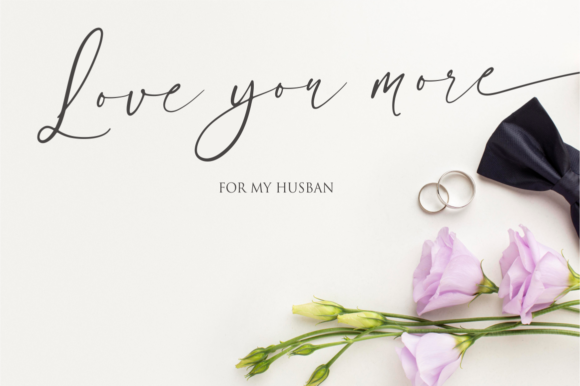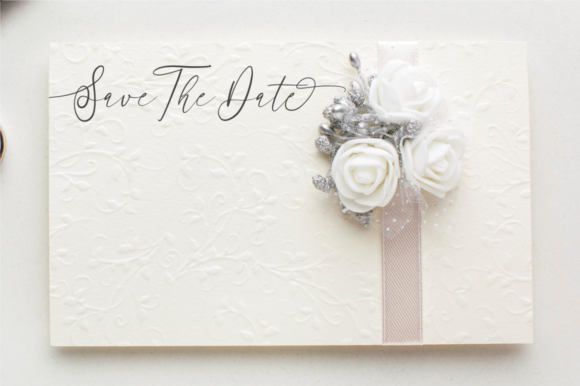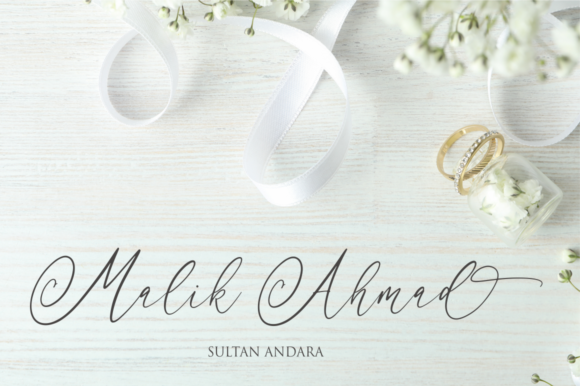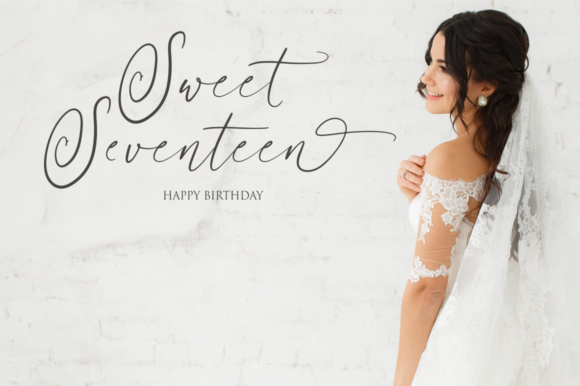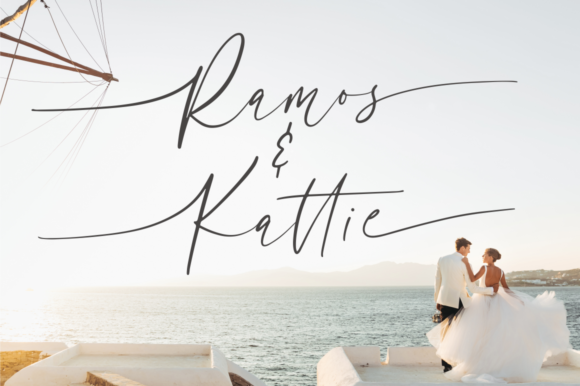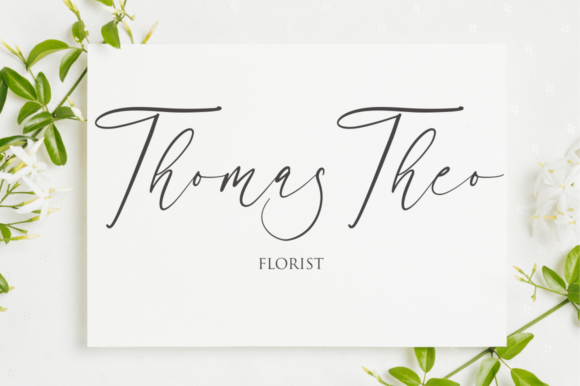
Get Married Font: Elevate Your Designs with Elegance and Sophistication
Are you a designer or crafter looking for a font that exudes elegance and sophistication? Look no further than the Get Married font, a stunning free-flowing script font that is perfect for a wide range of design projects. In this article, we’ll take a closer look at the features and benefits of Get Married font, and explore how it can elevate your designs to the next level.
What is Get Married Font?
Get Married font is a beautiful, hand-crafted script font that is designed to add a touch of elegance and sophistication to any design project. With its flowing lines and balanced character, this font is perfect for creating stunning packaging products, invitation cards, flyers, mockups, event posters, and more.
Key Features of Get Married Font
- Free-flowing script font: Get Married font features a beautiful, flowing script style that is perfect for creating elegant and sophisticated designs.
- High-quality vibes: Get Married font is designed to provide high-quality vibes, making it perfect for designs that require a touch of elegance and sophistication.
- Balanced character: The font features a beautiful and balanced character that fits well with a large design pool.
What Can I Use Get Married Font For?
Get Married font is a versatile font that can be used for a wide range of design projects, including:
- Packaging products: Add a touch of elegance and sophistication to your packaging products with Get Married font.
- Invitation cards: Create stunning invitation cards for weddings, parties, and other special events.
- Flyers: Design eye-catching flyers for events, promotions, and more.
- Mockups: Use Get Married font to create stunning mockups for your designs.
- Event posters: Create beautiful event posters for concerts, festivals, and other events.
Why Choose Get Married Font?
There are many reasons why you should choose Get Married font for your design projects. Here are just a few:
- Elegance and sophistication: Get Married font exudes elegance and sophistication, making it perfect for designs that require a touch of luxury.
- Versatility: This font can be used for a wide range of design projects, from packaging products to event posters.
- High-quality: This font is designed to provide high-quality vibes, making it perfect for designs that require a professional finish.
| Font Name | Get Married Font |
| Author | NJStudio |
In conclusion, Get Married font is a stunning free-flowing script font that is perfect for designers and crafters looking to add a touch of elegance and sophistication to their designs. With its beautiful and balanced character, PUA encoding, and high-quality vibes, this font is sure to elevate your designs to the next level. Whether you’re creating packaging products, invitation cards, flyers, mockups, or event posters, Get Married font is the perfect choice.